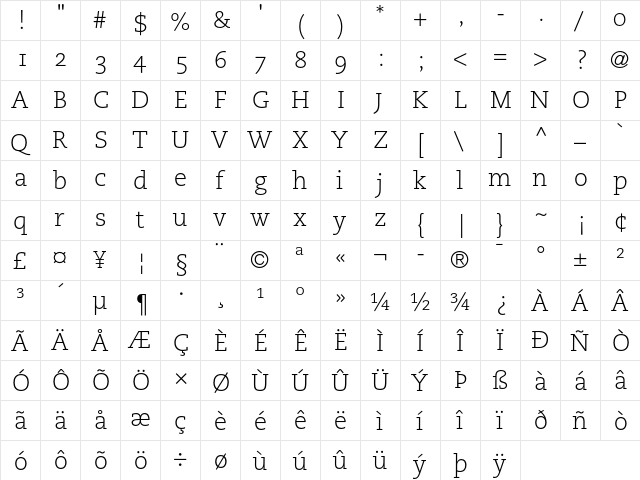
PMN Caecilia 45 Light OsF
Design Context for PMN Caecilia Typeface
PMN Caecilia takes a measured approach to typography — its balanced proportions and neutral character make it a reliable workhorse for both digital and print work. The delicate stroke weight brings airiness and refinement to layouts.